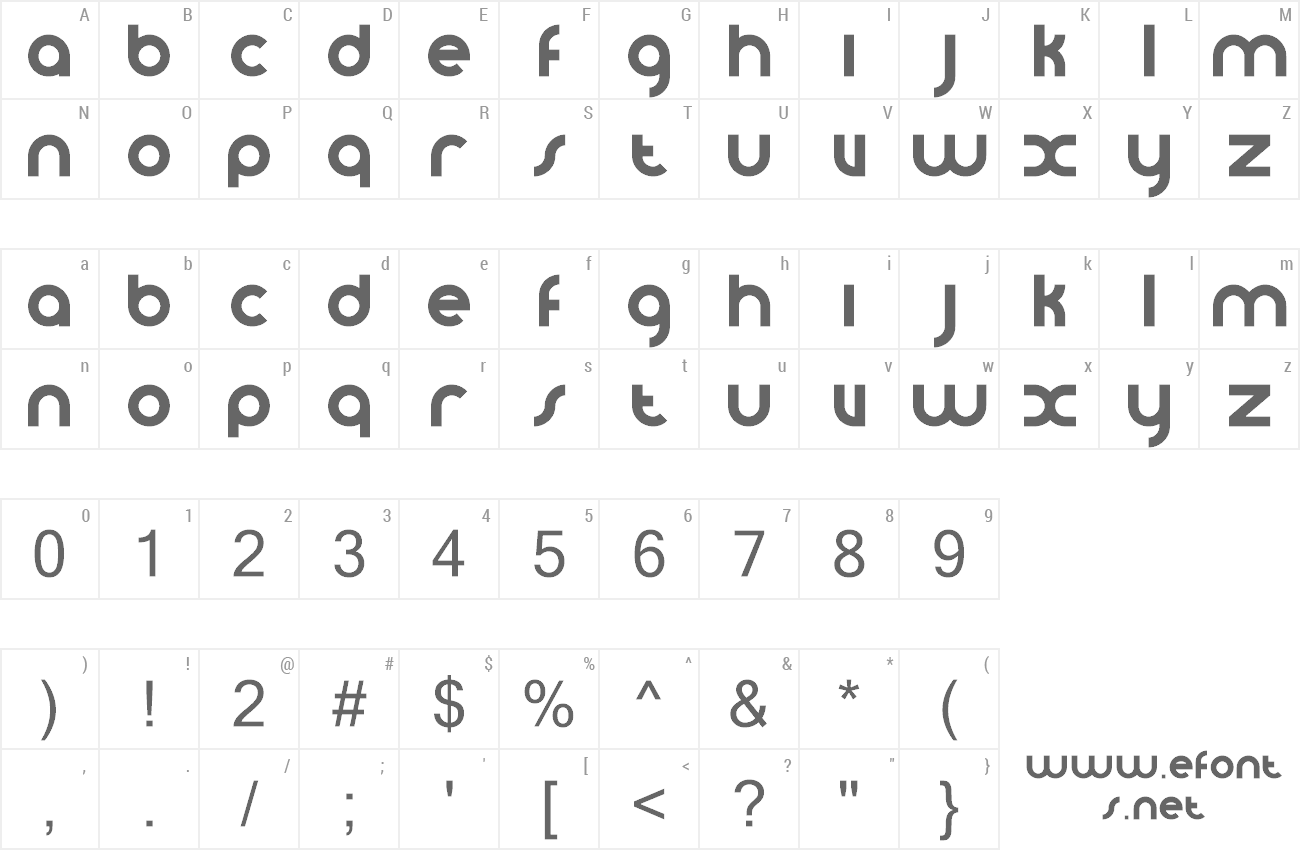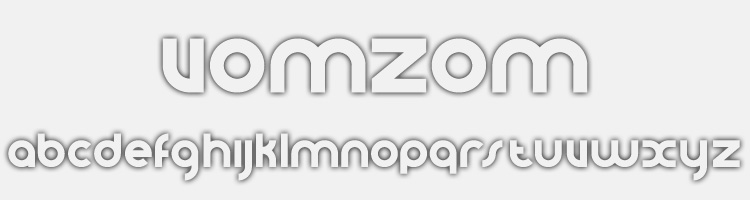
| Font name: | VomZom |
| Author: | defaulterror |
| Note by defaulterror | |
| Vomit Zombie is a clothing label I am working on with Ekon. The VomZom font came about while trying to come up with a logo for the label. |